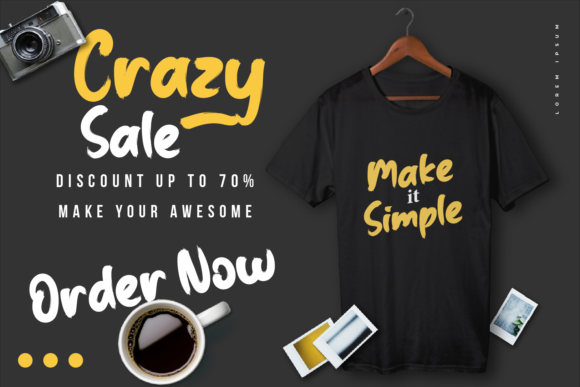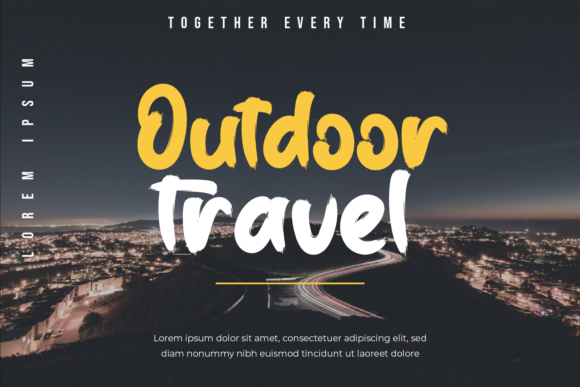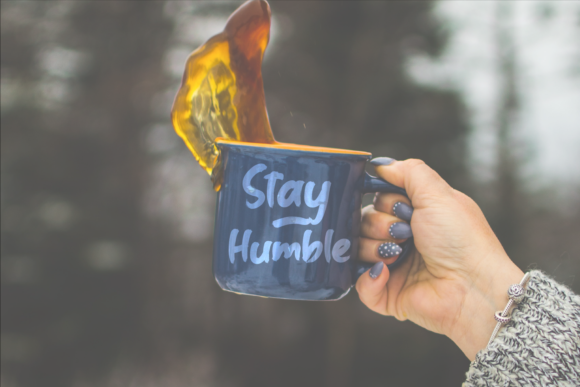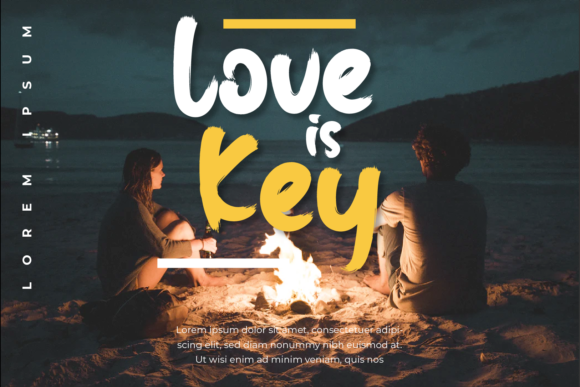
Introduction to Salting Font
Have you ever been in the middle of a creative project, and you’re struggling to find the perfect font to match your design? You scroll through hundreds of options, but nothing seems to capture the essence of your vision. This is where the Salting Font comes in – a beautiful, hand-drawn font with a natural brush style that’s sure to elevate your designs.
With its unique, high-quality design, the Salting Font is the perfect addition to any creative project. Whether you’re working on a social media business design, advertisement, lettering, poster, or anything in between, this font is sure to bring a touch of elegance and sophistication to your work.
Key Features of Salting Font
- High-quality font design with a unique, creative style perfect for various projects, including logos, branding, and digital art.
- Designed to be versatile and adaptable, making it perfect for use in a wide range of creative projects and design resources.
Honest Review: Salting Font
I recently stumbled upon the Salting Font, and I must say, it’s a great addition to any designer’s toolkit. The font is available for free download, making it a fantastic resource for creative projects on a budget.
The Salting Font boasts high-quality glyphs, making it perfect for use in various design contexts. Its sleek and modern design makes it a great choice for any creative project.
- High-quality glyphs
- Modern design
- Can be used with transparent background
✨ One of the standout features of the Salting Font is its ability to be used with a transparent background. This adds an extra layer of versatility to the font, making it perfect for designers who want to create unique and eye-catching designs.
- May not be suitable for very small text sizes
- Does not include a wide range of language support
⚠️ While the Salting Font is a great addition to any designer’s toolkit, it does have some limitations. For example, it may not be suitable for very small text sizes, and it does not include a wide range of language support.
Overall, I’m impressed with the Salting Font. Its high-quality glyphs, modern design, and free download make it a fantastic resource for designers. While it may have some limitations, it’s still a great choice for any creative project.
The Salting Font is a high-quality design resource ideal for creative projects. With its transparent background, this font is perfect for adding a touch of elegance to your designs.
Common Use Cases for Salting Font
The Salting Font is ideal for use in wedding invitations, party decorations, and other creative projects that require a touch of sophistication. Its transparent background makes it perfect for use on images or backgrounds with a similar tone.